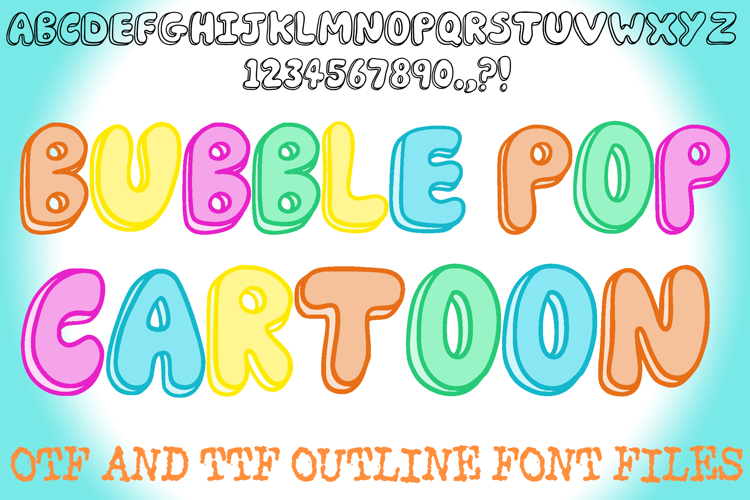
Bubble Pop Cartoon 3D Font Fun Rounded Kids Typeface OTF
Bubble Pop 3D Cartoon Font is a fun, cheerful, and bouncy typeface filled with playful energy! Each letter has a rounded, puffy bubble shape that brings a joyful, cartoon-style vibe to your designs. Perfect for kids’ projects, birthday invitations, comics, logos, toy packaging, classroom posters, and playful branding, this font instantly adds a dose of happiness and creativity.
With its soft outlines, smooth curves, and friendly 3D effect, Bubble Pop is easy to read and perfect for both print and digital use. Whether you’re designing for children, animation, or anything lighthearted and cute — this font will make your text pop!